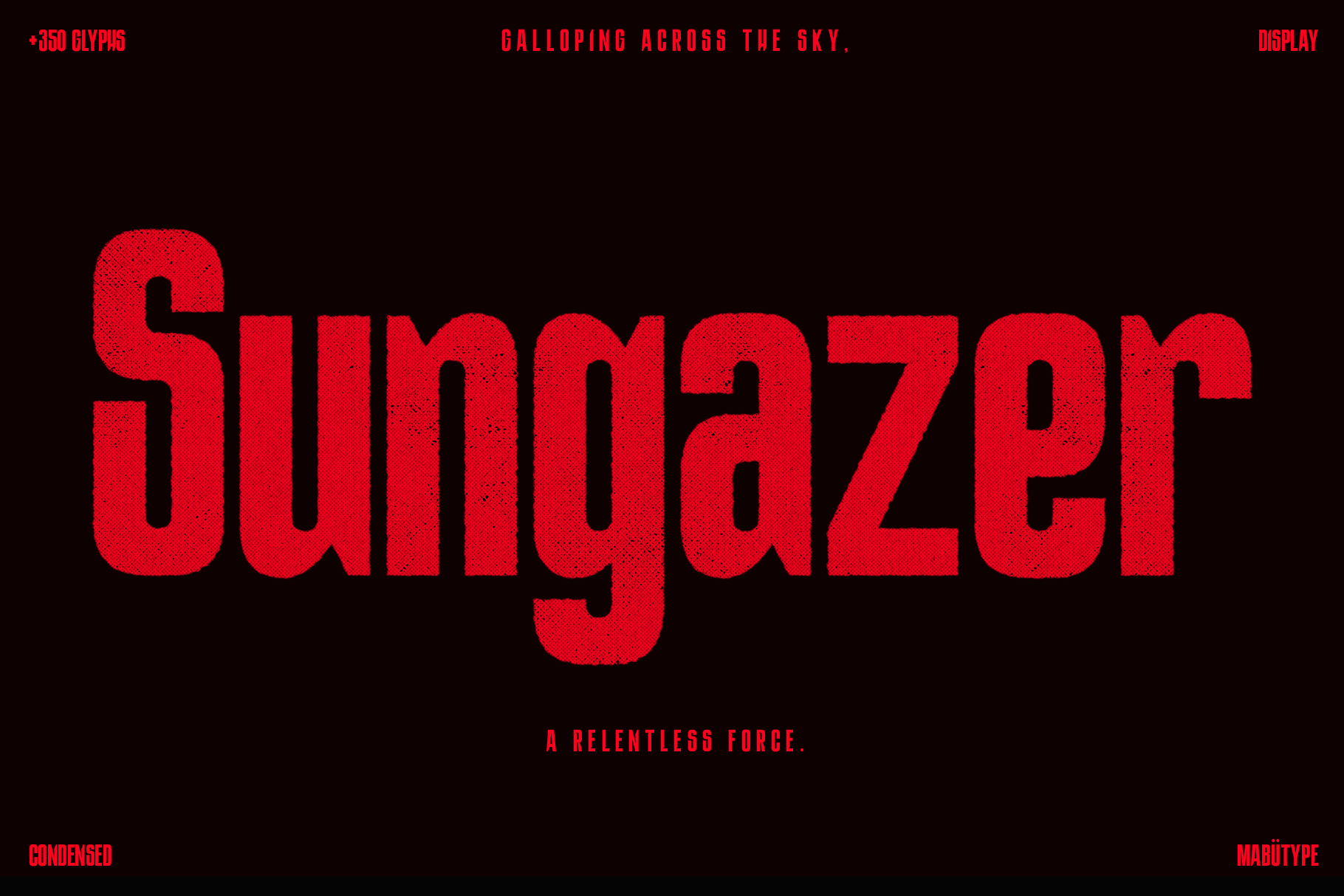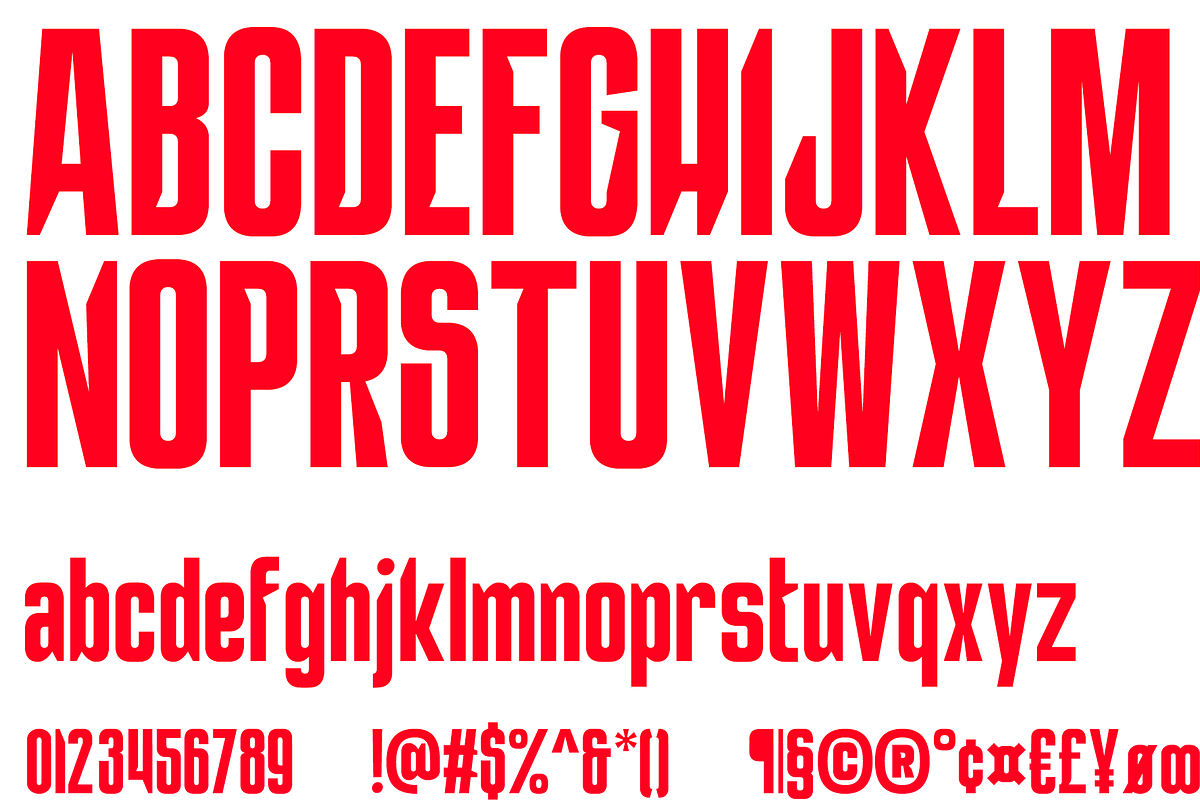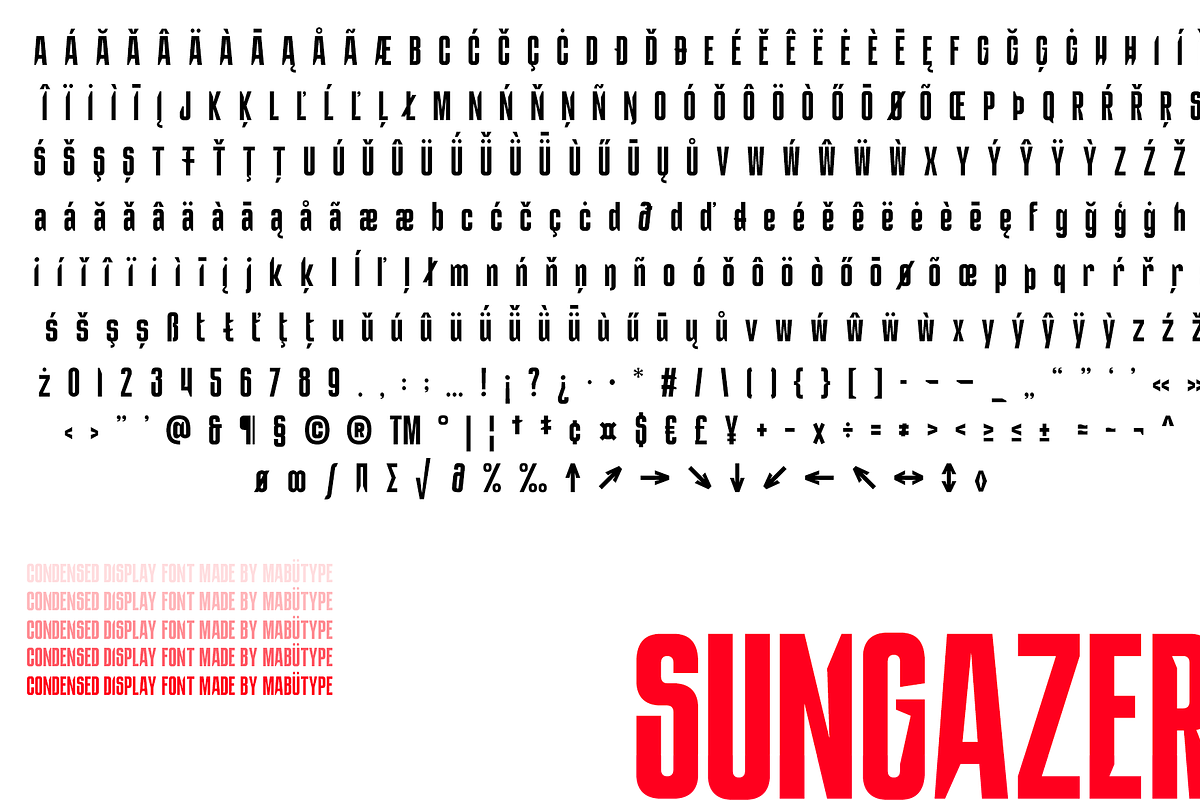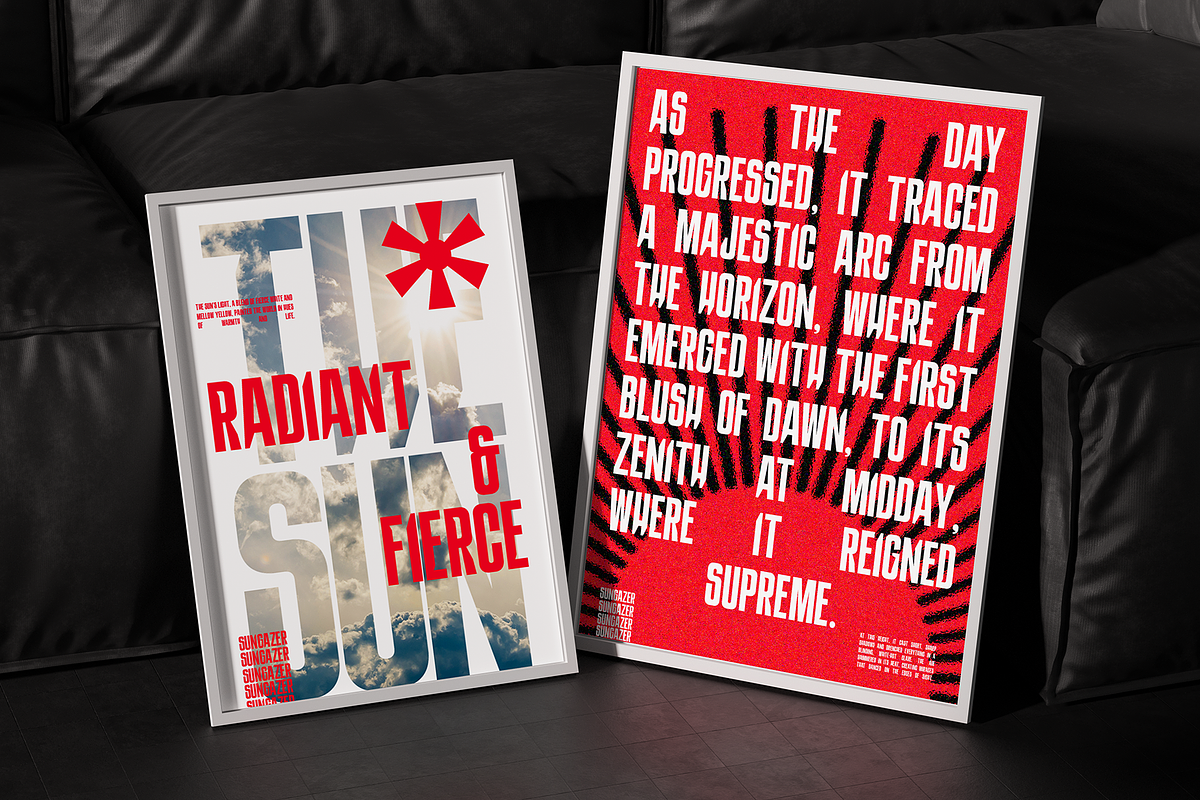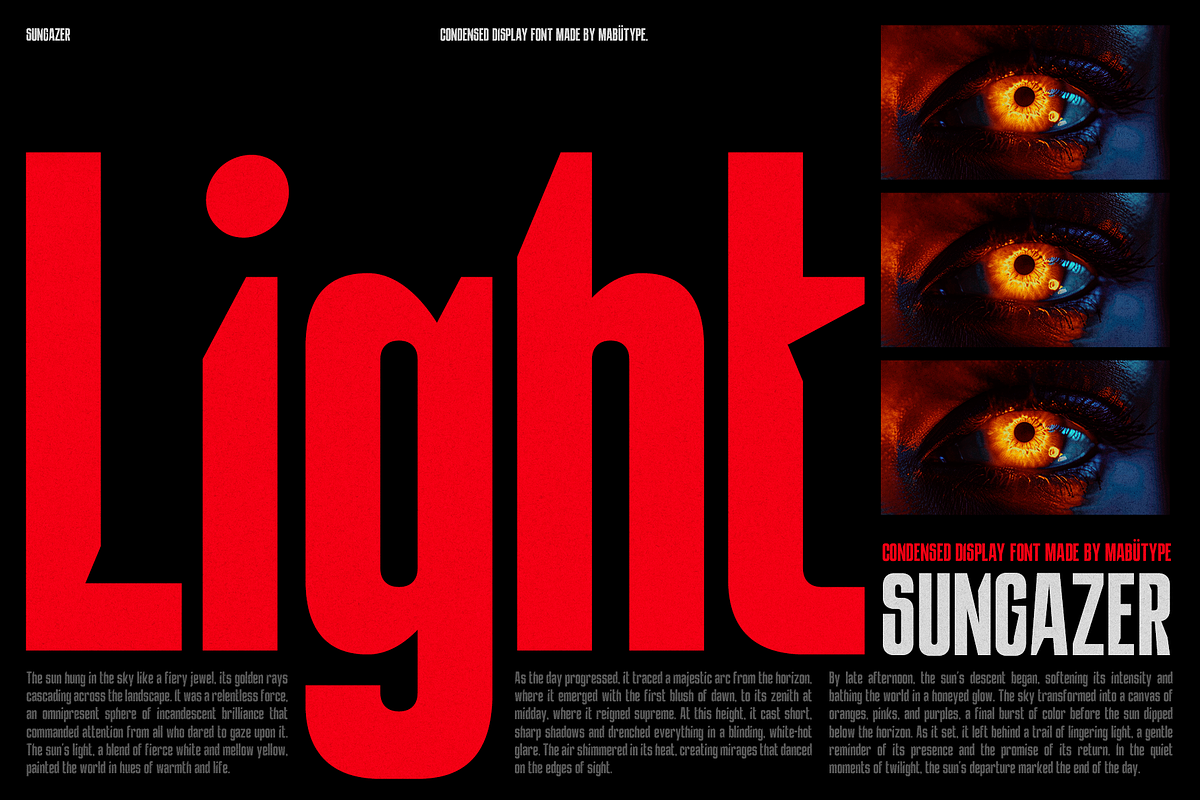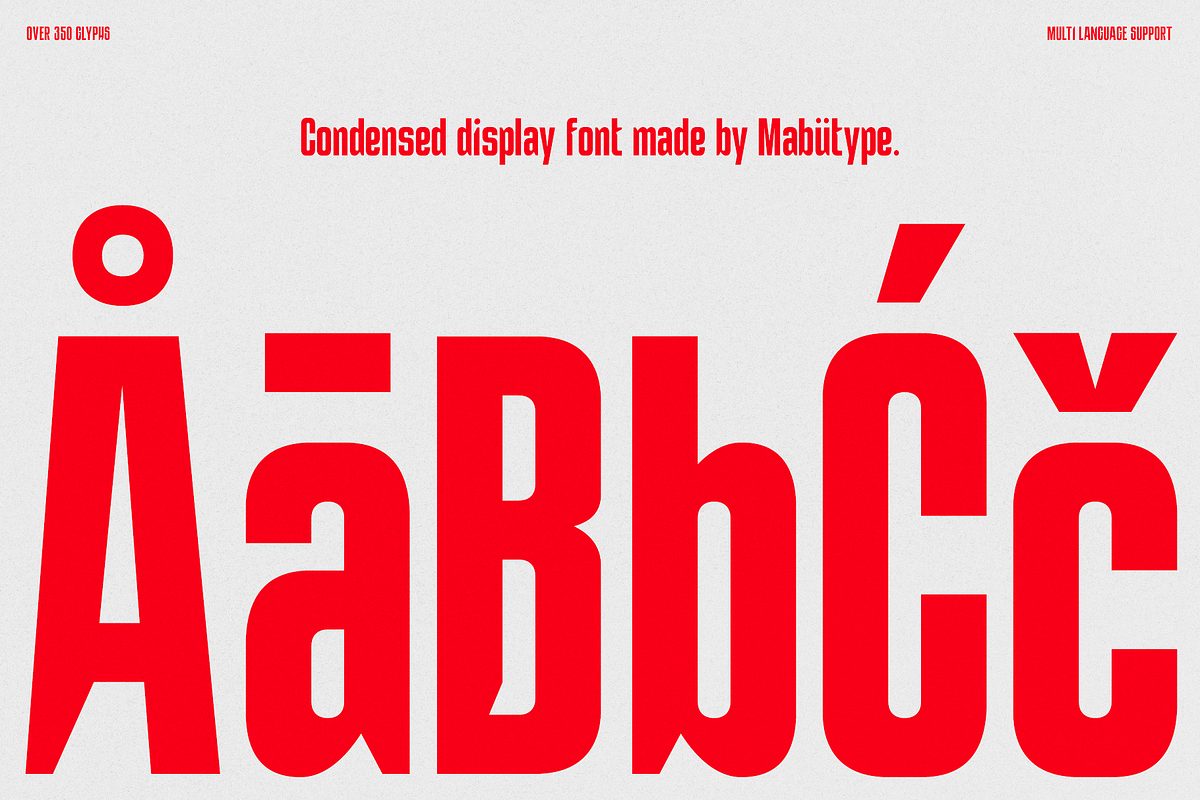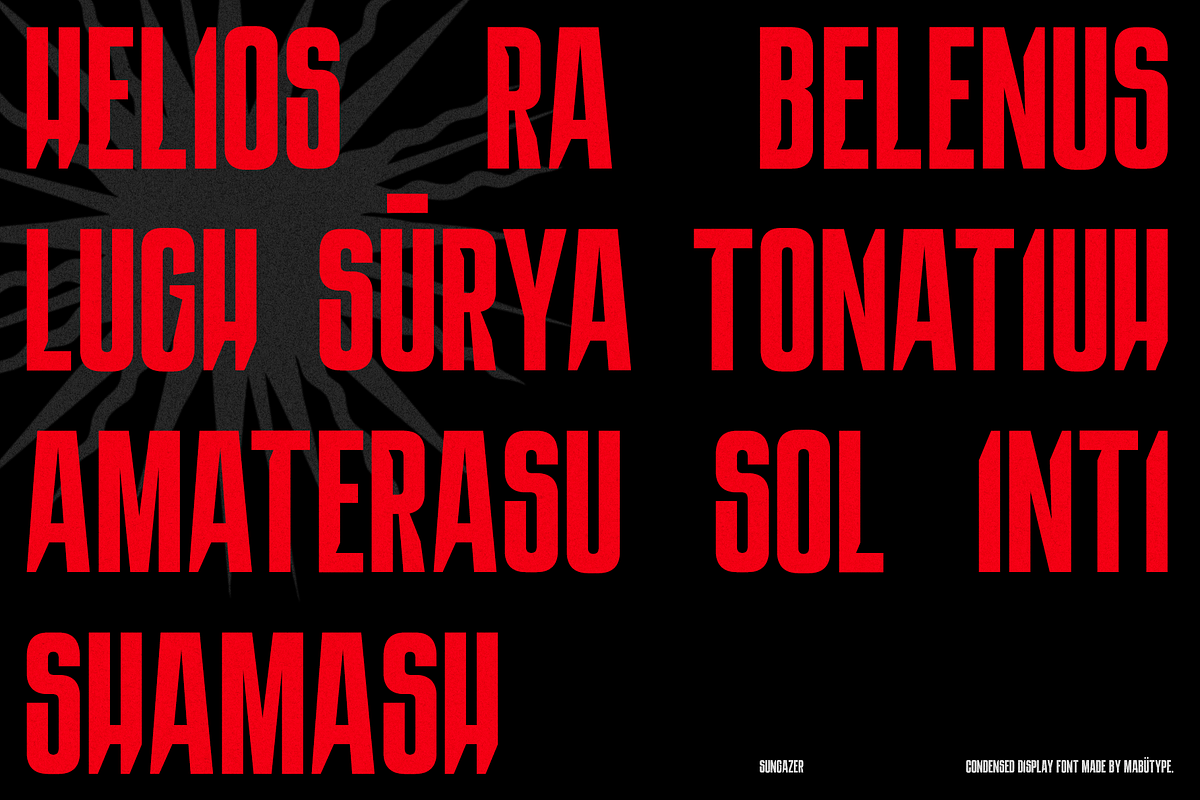
Sungazer - Display Typeface
Sungazer is a bold, impactful sans-serif condensed typeface, artfully crafted to pack more text into your headlines without sacrificing its distinctive flair and aesthetics. Perfect for enhancing your creative projects on flyers, posters, banners, and merch.